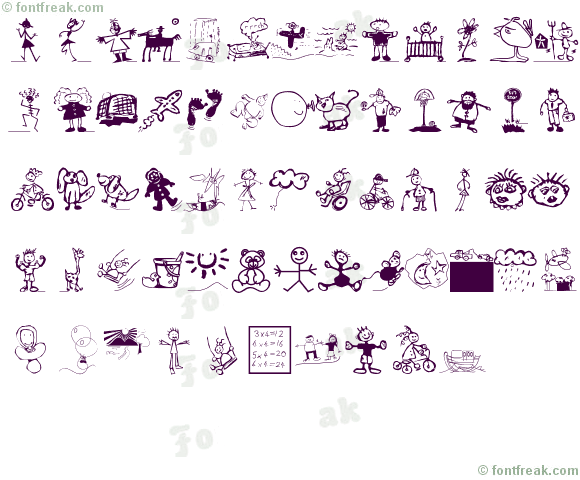
ForKids
About ForKids
ForKids by Manfred Klein is a delightful display font designed specifically with children in mind. This playful, decorative typeface exudes charm through its whimsical, hand-drawn style, making it a perfect choice for projects that aim to engage a younger audience. The font features a consistent stroke weight that lends a friendly and approachable feel, while its rounded forms and playful spacing add to its carefree character. With no harsh contrasts, ForKids maintains a soft visual appeal, making it easy to read for children and parents alike.
This font is ideal for various creative applications, including children’s book covers, educational materials, birthday party invitations, and playful posters. Its friendly aesthetic can also enhance websites aimed at kids, making learning and exploration more engaging. Small business owners in the children's market, such as toy shops or play centers, will find ForKids to be an excellent asset for branding and promotional materials, ensuring their messages resonate with the target audience.
The target audience for ForKids encompasses graphic designers looking to add a playful touch to their projects, small business owners seeking to attract families, and content creators who wish to bring a whimsical flair to their work. The font’s lighthearted nature makes it a versatile choice for anyone aiming to capture the essence of childhood wonder.
In a market filled with standard typefaces, ForKids stands out due to its unique, hand-drawn style that captures the joy and imagination of childhood. The engaging visual appeal and versatility of this font make it a valuable addition to any designer’s toolkit. For those looking to incorporate this charming typeface into their projects, the ForKids font free download offers an accessible way to bring a touch of whimsy to any endeavor.